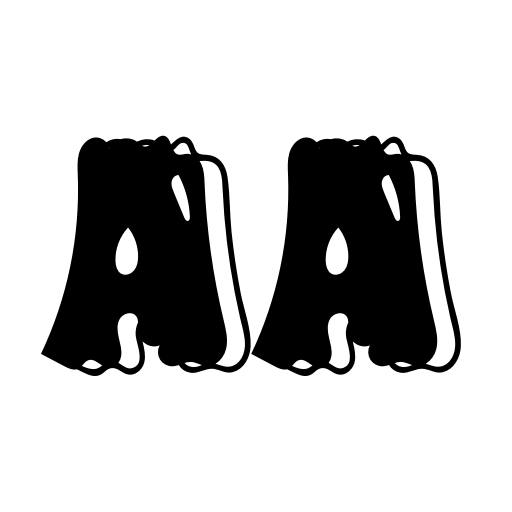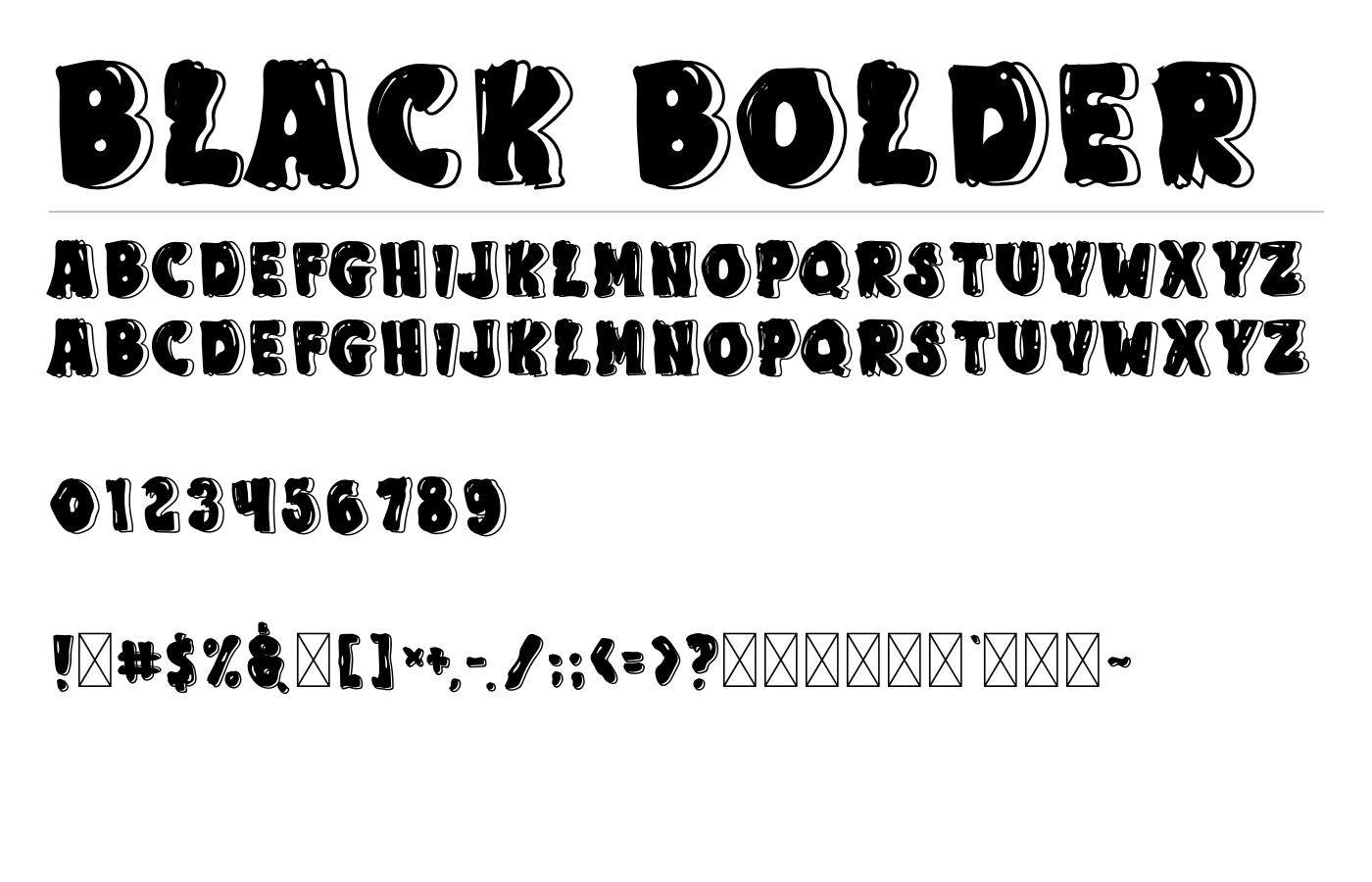
Black Bolder is a bold, playful display font with chunky letterforms and an uneven, hand-drawn style that adds a fun, casual vibe. Its heavy weight and quirky shapes make it perfect for attention-grabbing headlines, posters, and branding that aims to feel energetic and approachable. This font works well where a lively, informal look is needed to stand out and convey personality.
BLack Bolder Font
About BLack Bolder Font